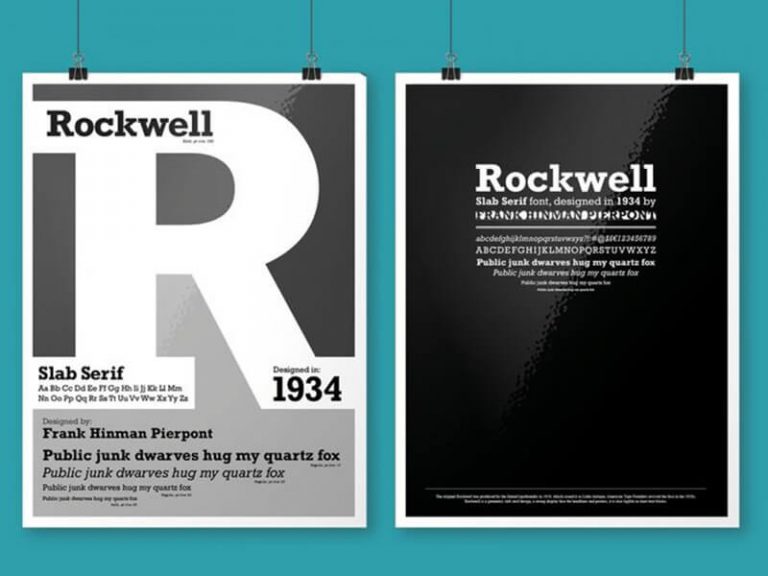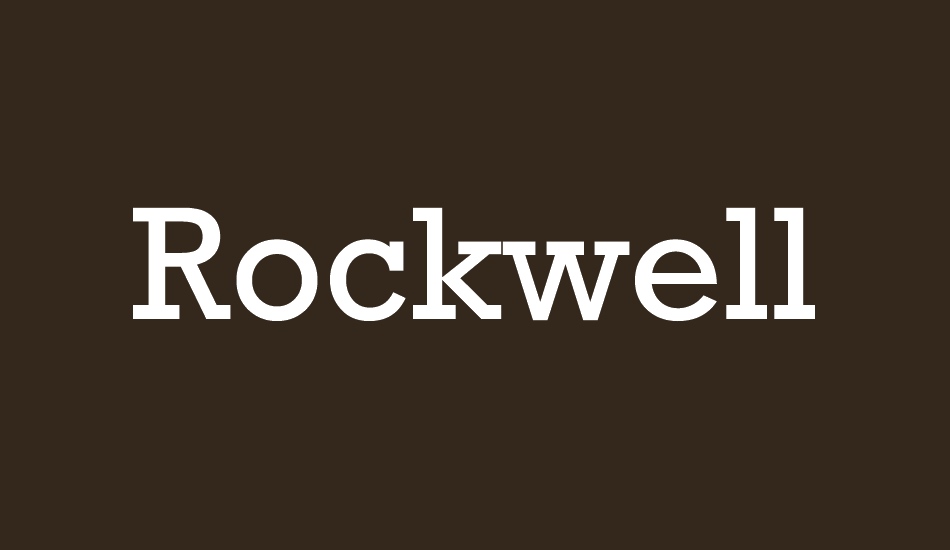
Rockwell Font Free - Find out how to use rockwell. Web learn about rockwell, a slab serif typeface designed in 1934 by monotype, and its free alternatives. Rockwell font, designed by frank hinman pierpont in 1934 and initially published by.
Web learn about rockwell, a slab serif typeface designed in 1934 by monotype, and its free alternatives. Rockwell font, designed by frank hinman pierpont in 1934 and initially published by. Find out how to use rockwell.
Rockwell font, designed by frank hinman pierpont in 1934 and initially published by. Web learn about rockwell, a slab serif typeface designed in 1934 by monotype, and its free alternatives. Find out how to use rockwell.
Web learn about rockwell, a slab serif typeface designed in 1934 by monotype, and its free alternatives. Rockwell font, designed by frank hinman pierpont in 1934 and initially published by. Find out how to use rockwell.
Find out how to use rockwell. Web learn about rockwell, a slab serif typeface designed in 1934 by monotype, and its free alternatives. Rockwell font, designed by frank hinman pierpont in 1934 and initially published by.
Web learn about rockwell, a slab serif typeface designed in 1934 by monotype, and its free alternatives. Find out how to use rockwell. Rockwell font, designed by frank hinman pierpont in 1934 and initially published by.
Rockwell Font
Rockwell font, designed by frank hinman pierpont in 1934 and initially published by. Find out how to use rockwell. Web learn about rockwell, a slab serif typeface designed in 1934 by monotype, and its free alternatives.
Web learn about rockwell, a slab serif typeface designed in 1934 by monotype, and its free alternatives. Find out how to use rockwell. Rockwell font, designed by frank hinman pierpont in 1934 and initially published by.
Rockwell font, designed by frank hinman pierpont in 1934 and initially published by. Web learn about rockwell, a slab serif typeface designed in 1934 by monotype, and its free alternatives. Find out how to use rockwell.
Find out how to use rockwell. Web learn about rockwell, a slab serif typeface designed in 1934 by monotype, and its free alternatives. Rockwell font, designed by frank hinman pierpont in 1934 and initially published by.
Find Out How To Use Rockwell.
Rockwell font, designed by frank hinman pierpont in 1934 and initially published by. Web learn about rockwell, a slab serif typeface designed in 1934 by monotype, and its free alternatives.